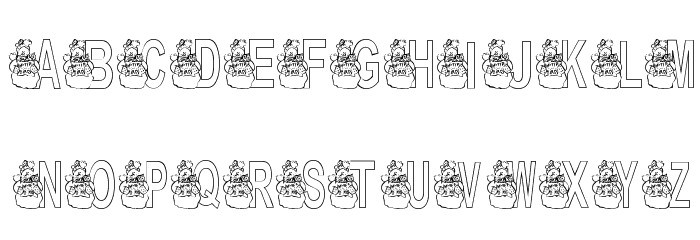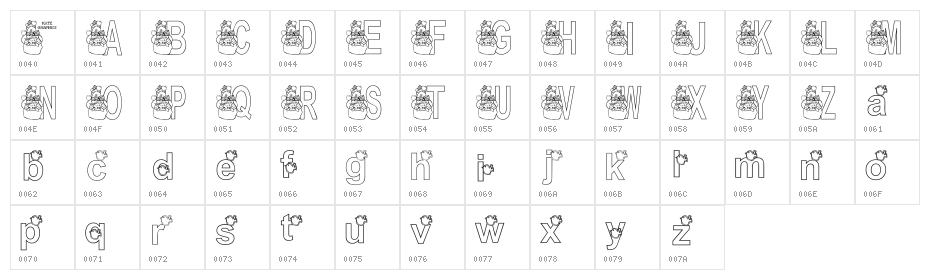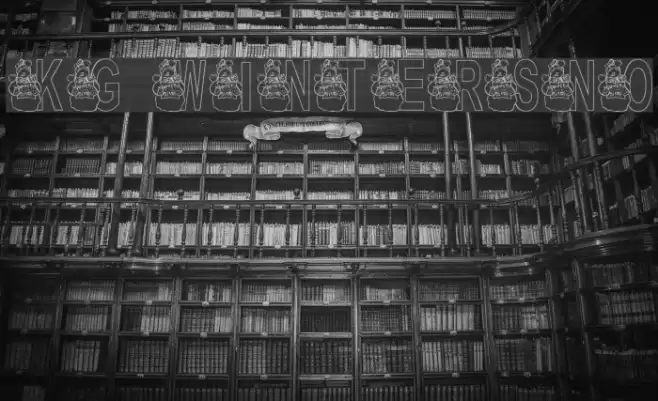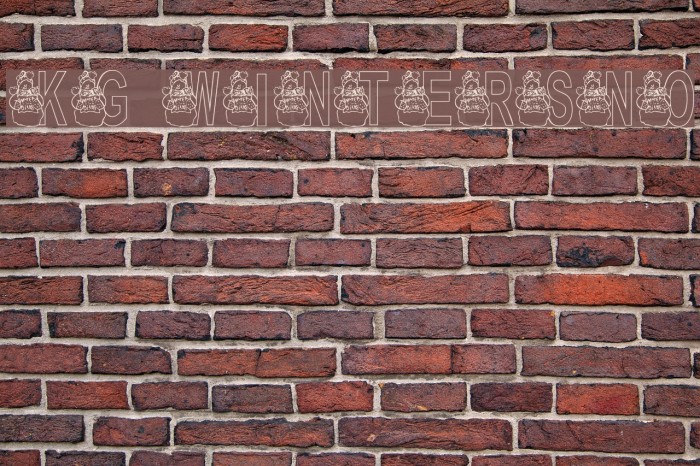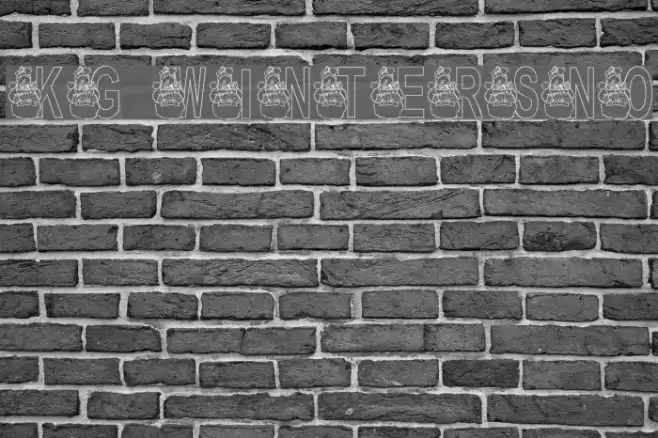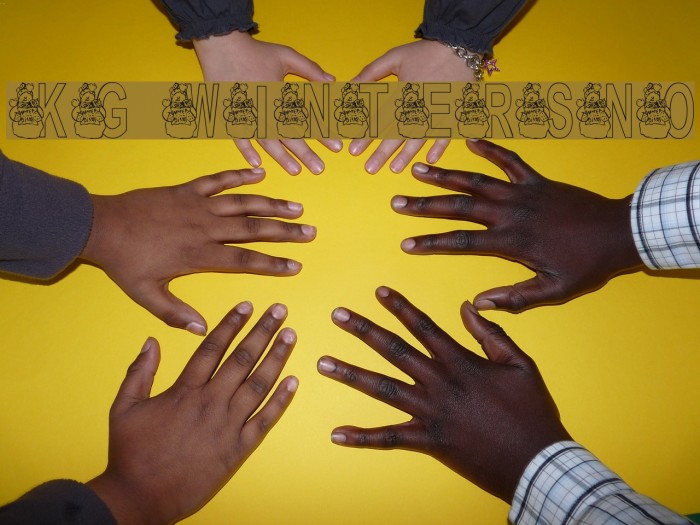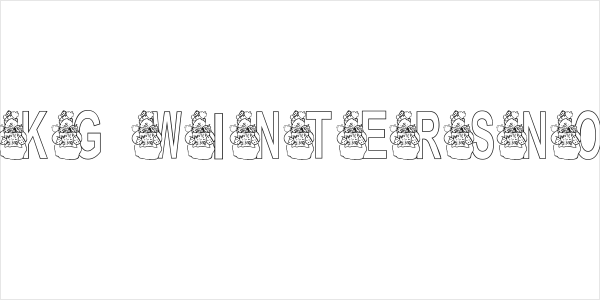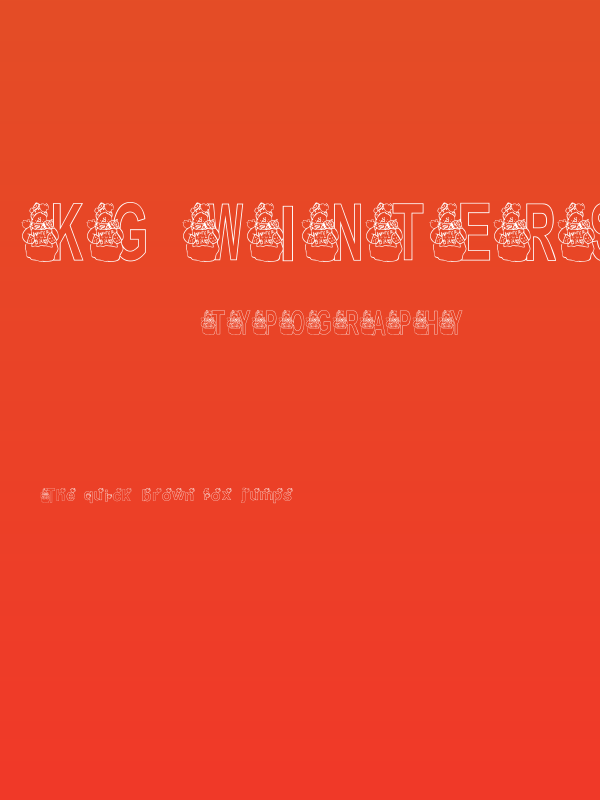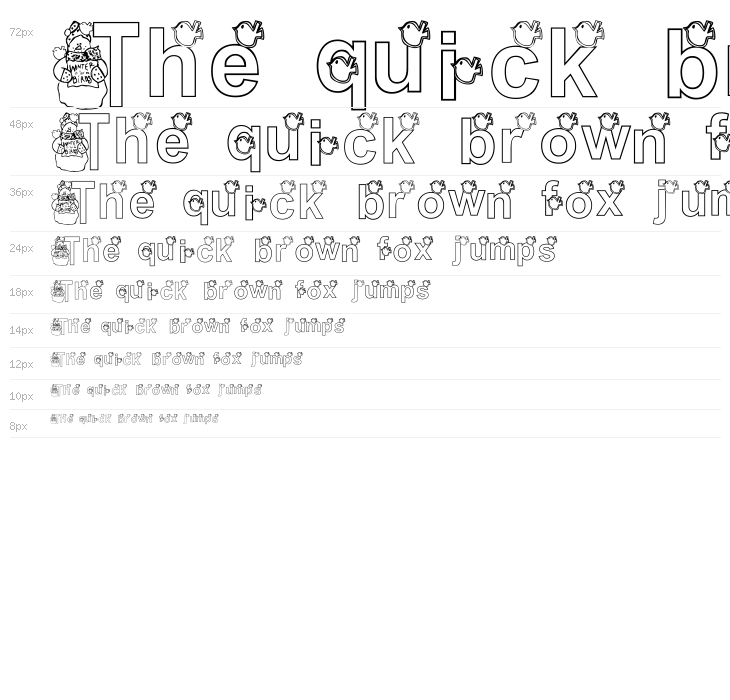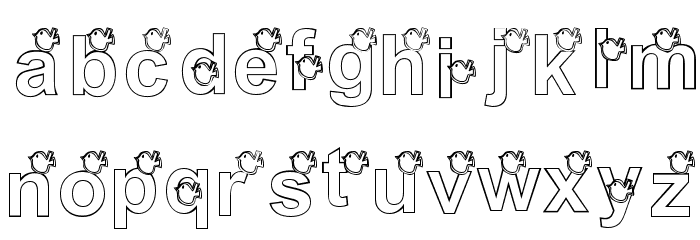
KG WINTERSNO Font
KG WINTERSNO Description
This playful and decorative font features a unique winter theme, with each letter adorned by a charming snowman illustration. The characters are bold and outlined, providing a clear and festive appearance. The uppercase and lowercase letters maintain a consistent style, with the snowman adding a whimsical touch to each character. The numbers and special characters also follow this delightful design, making it perfect for holiday-themed projects. The overall style is both fun and engaging, capturing the essence of winter joy.
| Proposed Projects | Ideal for holiday cards, winter festival posters, children's books, and seasonal decorations. |